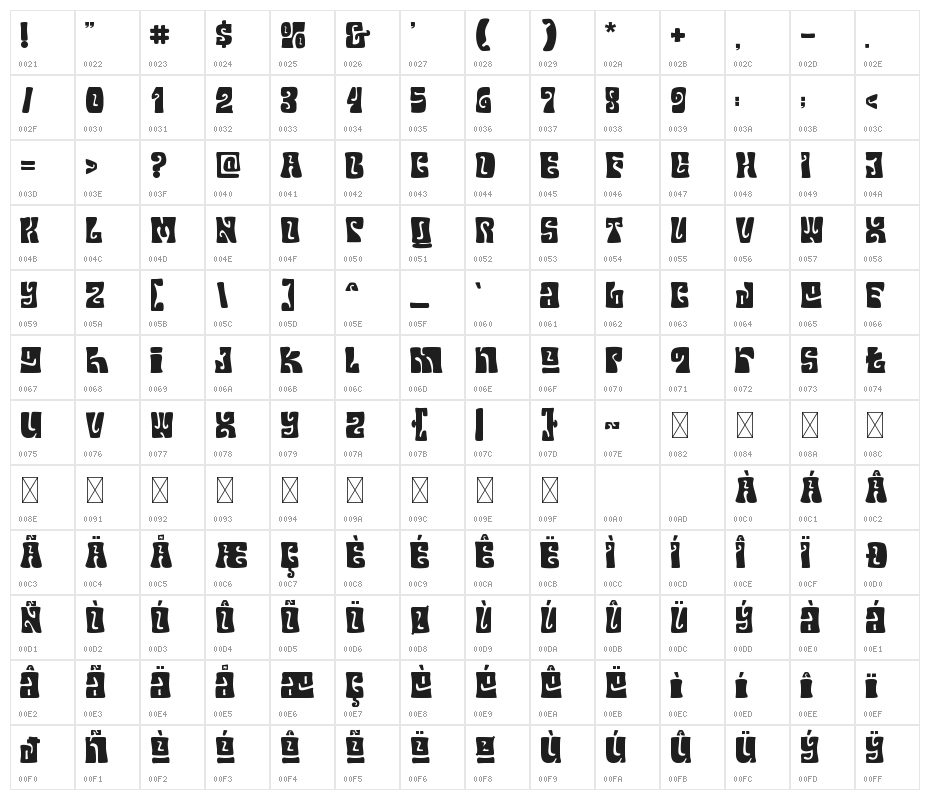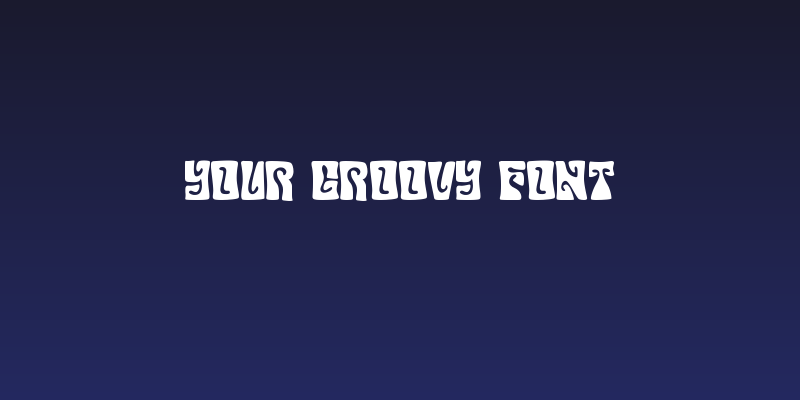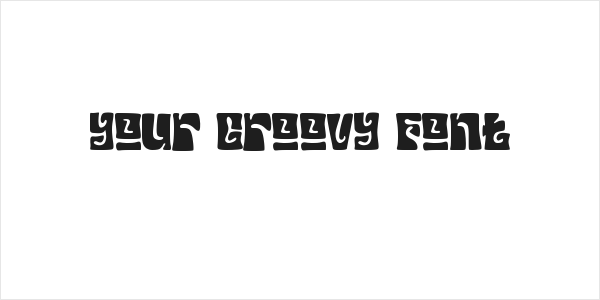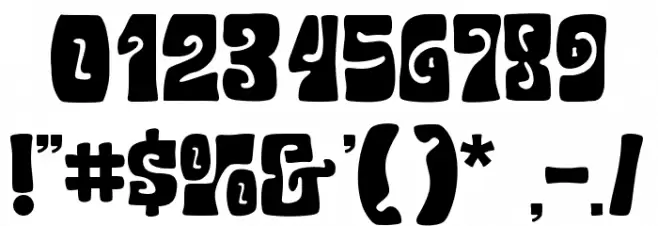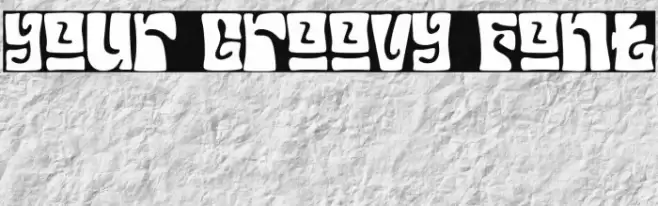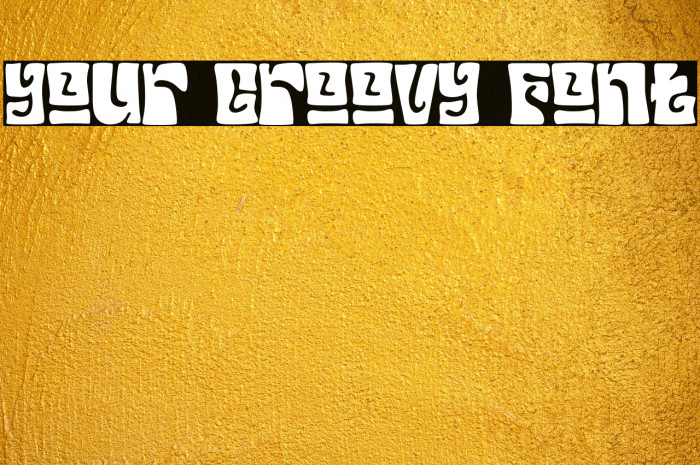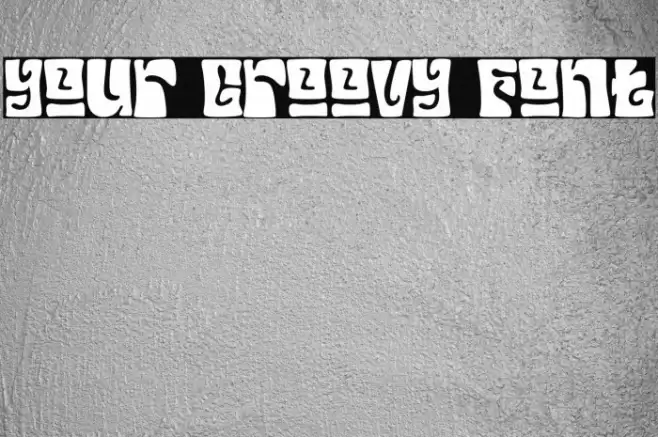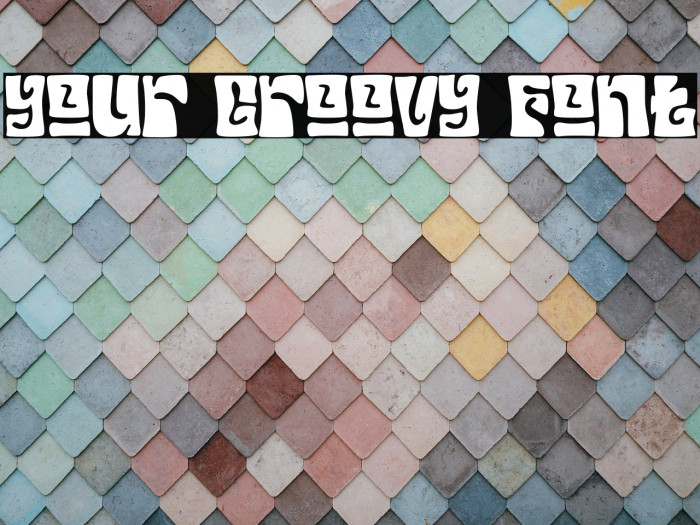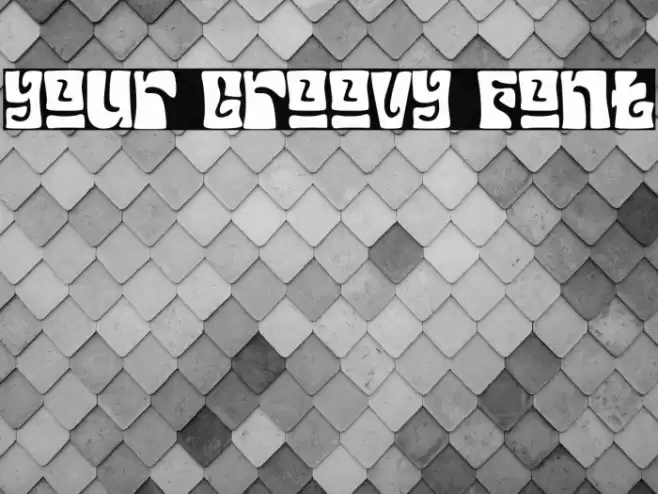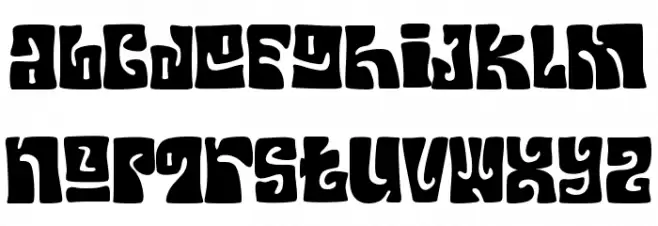
Your Groovy Font Font
Your Groovy Font Description
This font exudes a bold and playful vibe, characterized by its thick, rounded shapes and whimsical curves. The letters are heavily stylized, with exaggerated forms that create a sense of movement and energy. Each character is distinct, with unique features that contribute to the font's overall groovy and retro aesthetic. The numbers and special characters maintain the same lively style, ensuring consistency across all elements. This font is perfect for projects that aim to capture a sense of fun and nostalgia, reminiscent of the vibrant designs of the 1960s and 70s.
| Overall Style | Retro, Playful |
| Use Case | Headlines, Posters, Branding |
| Proposed Projects | Ideal for retro-themed posters, album covers, event flyers, and branding that seeks a fun, nostalgic appeal. |